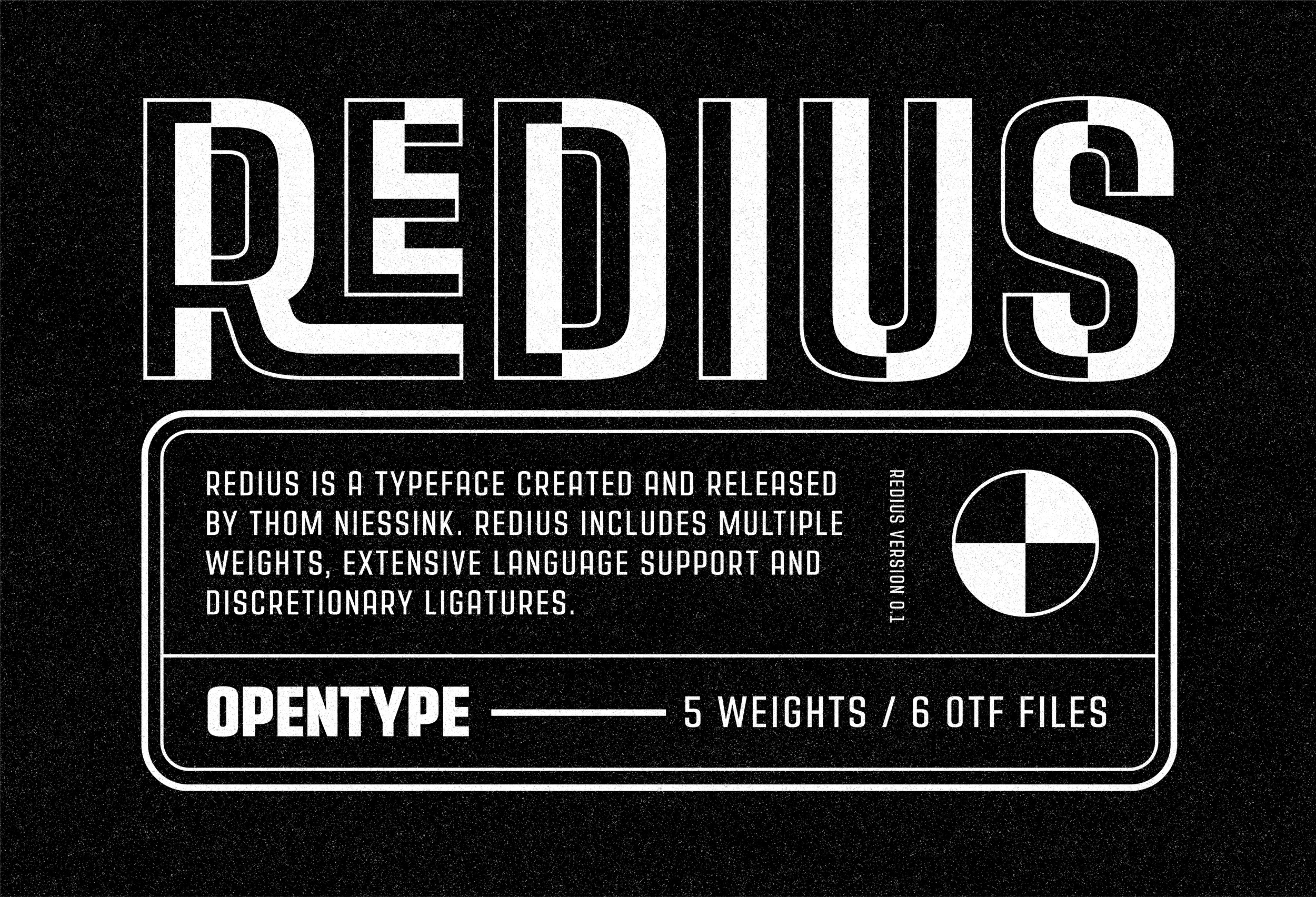
Redius - Typeface
Redius is an all caps typeface that was inspired by the type from a metal signage of my great grandfathers vegetable and fruit shop from the early 1900’s. The letter shapes are made more contemporary and expanded into 5 different weights, giving it a wide range of flexibility. On top of that, Redius also comes with a distinctive embossed letter style, contains extended language support and discretionary ligatures.
Just as the initial inspiration, this typeface is well suited for big, bold signage and expressive logotypes.